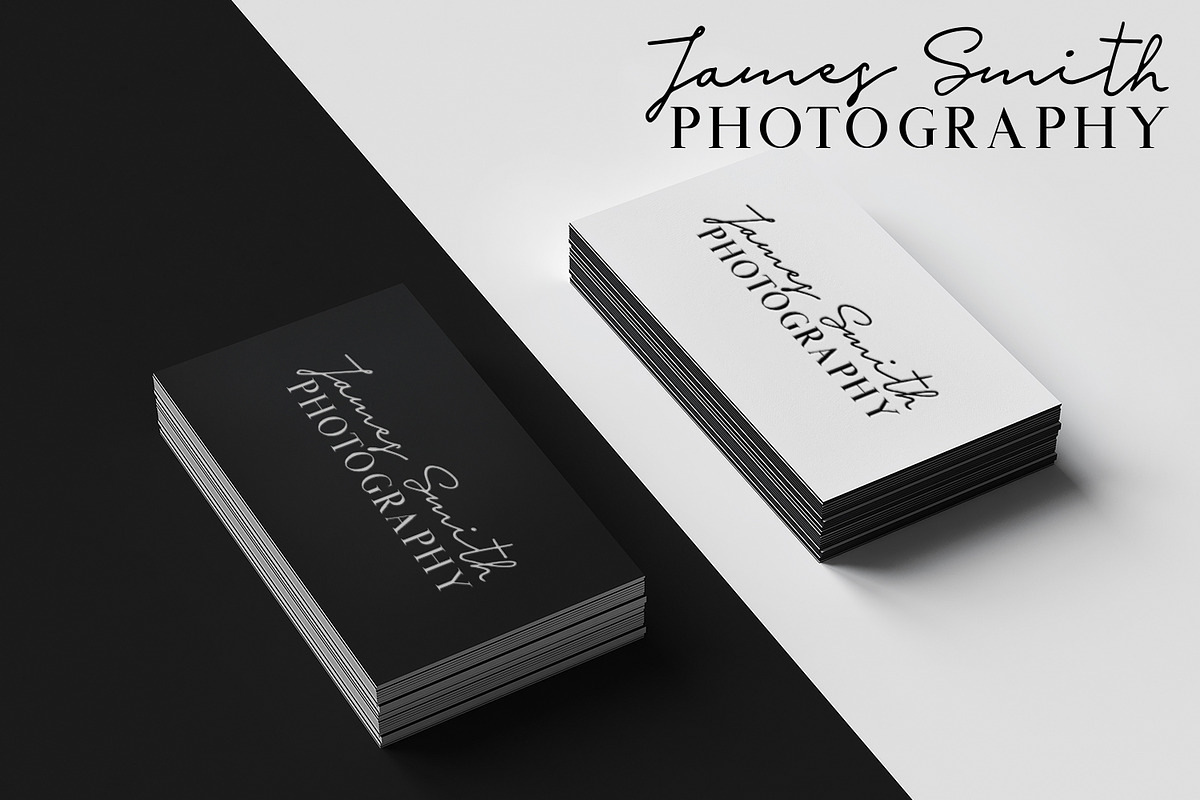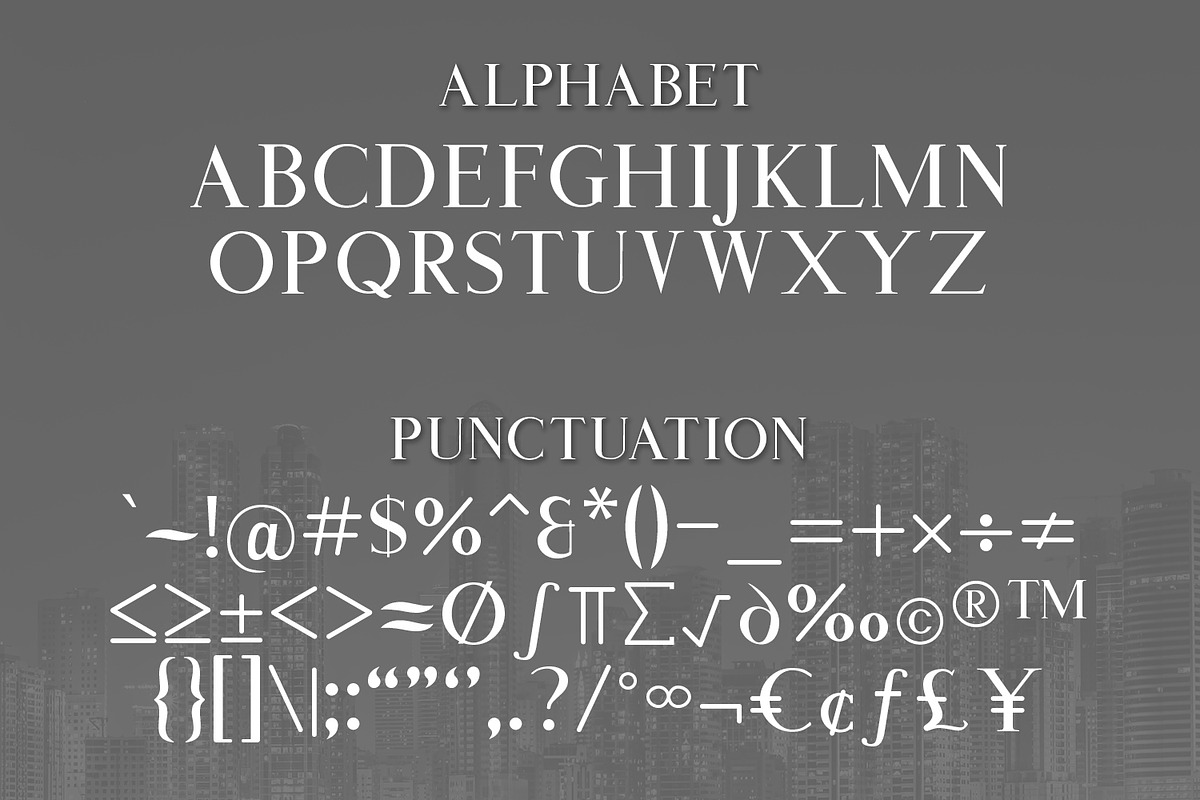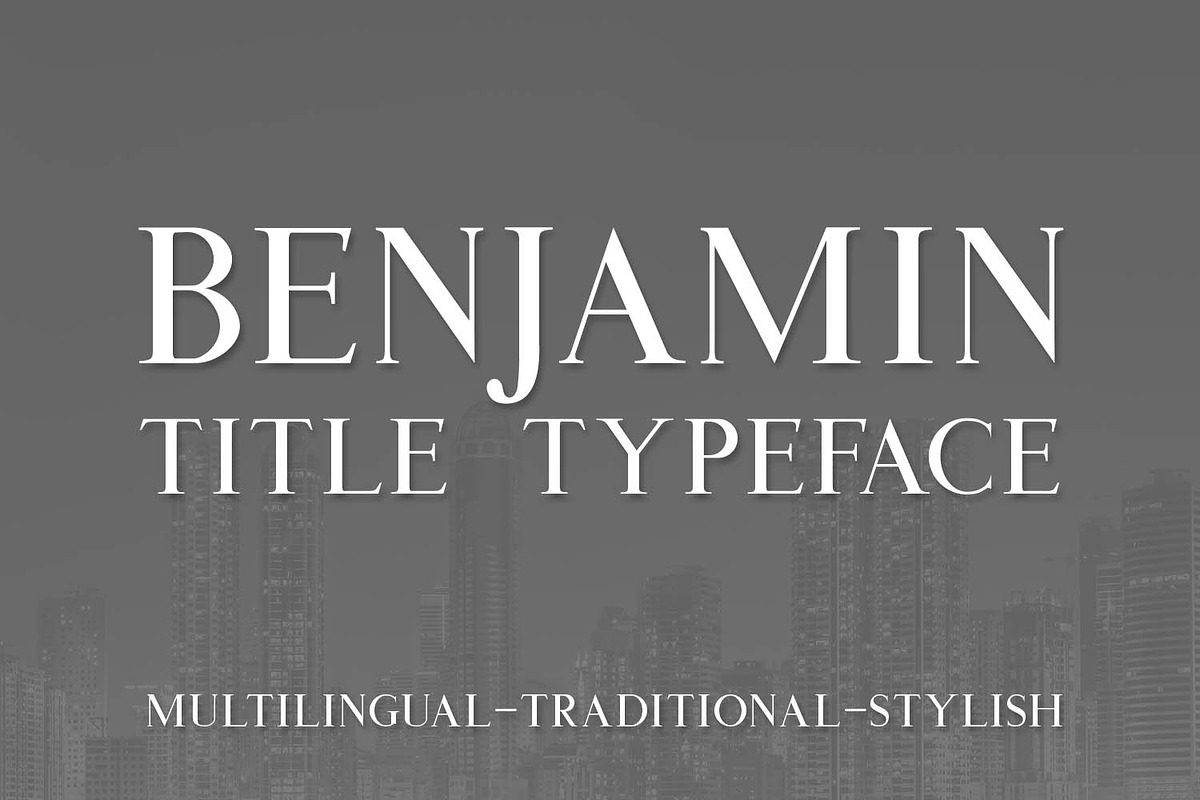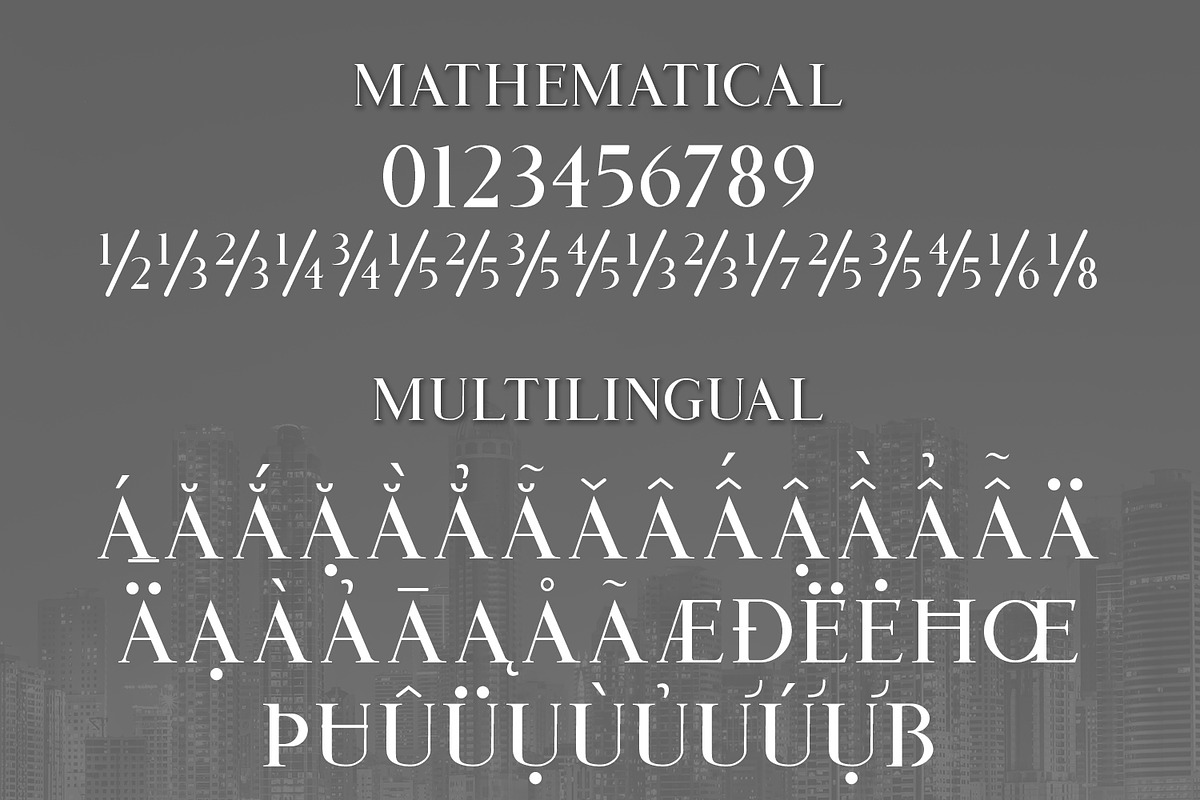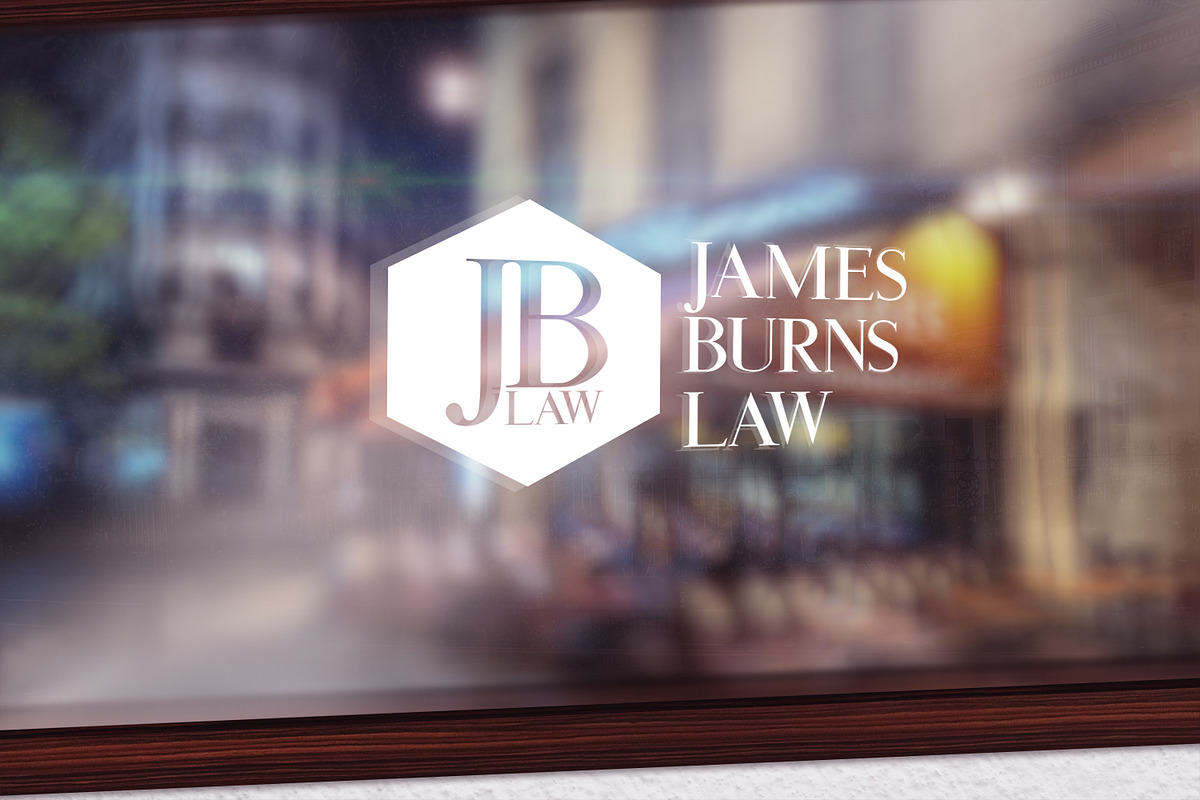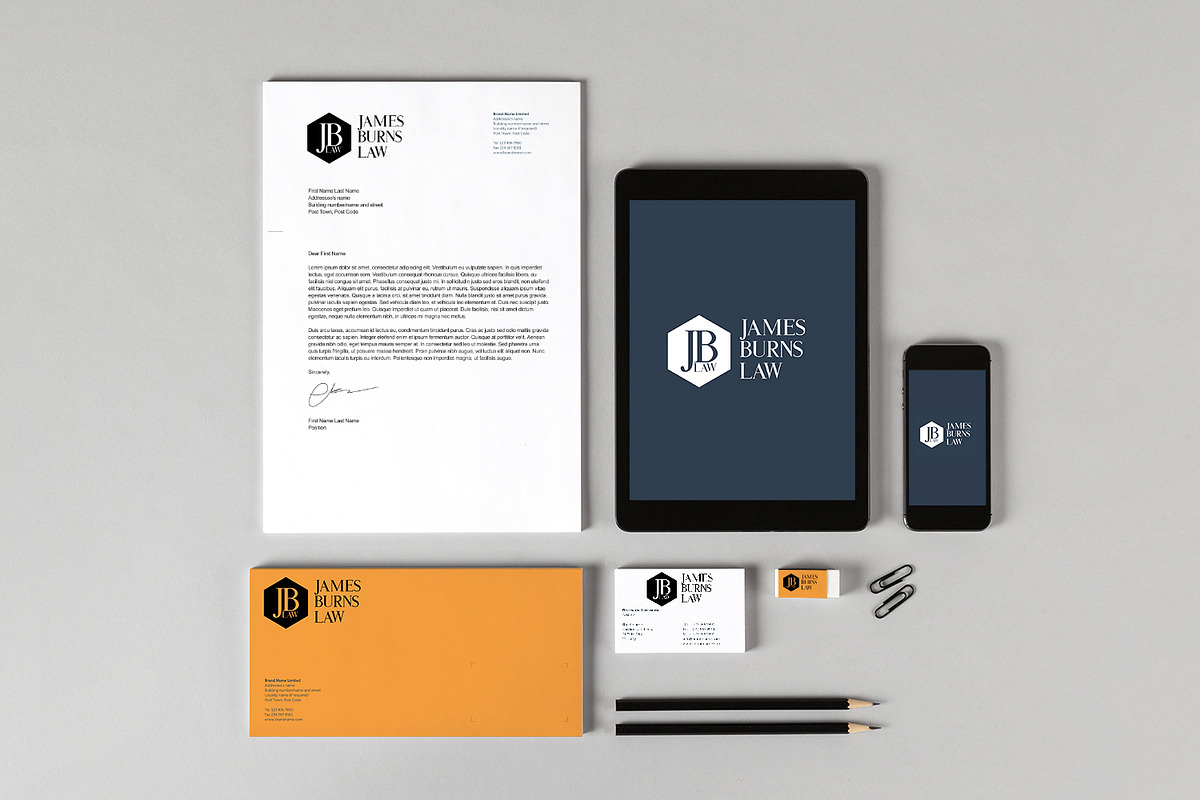
Benjamin Title Typeface
Benjamin Title Typeface by Kristy Hatswell is a font selected for branding, posters, packaging, typography.
- UPDATED: Now includes multilingual characters!
- Features Includes extra mathematical characters such as fractions and more Currency glyphs include dollar, yen, euro and the pound sterling
Why Benjamin Title Typeface is worth a look
Benjamin Title Typeface by Kristy Hatswell fits naturally into Branding, posters, packaging, typography.